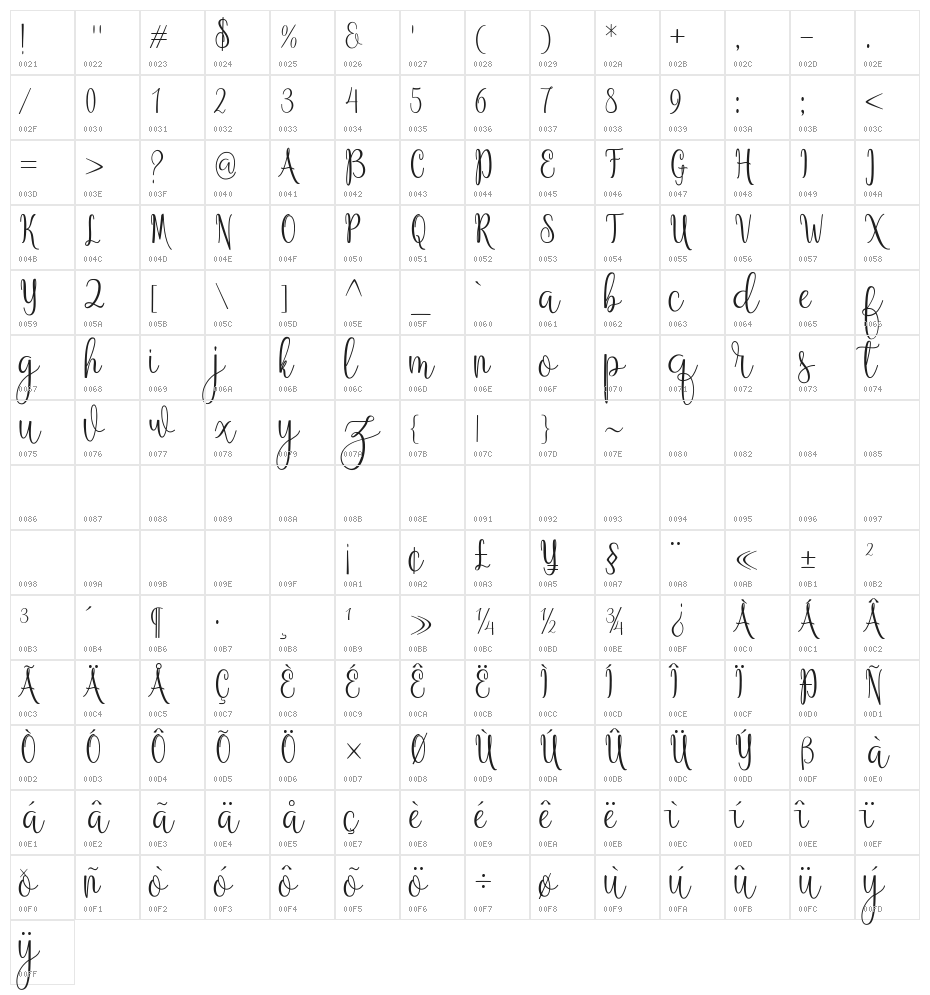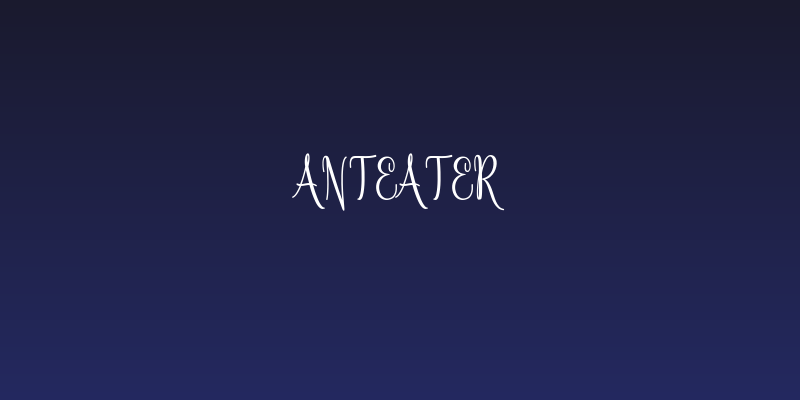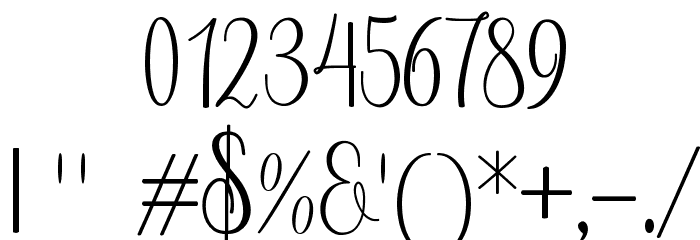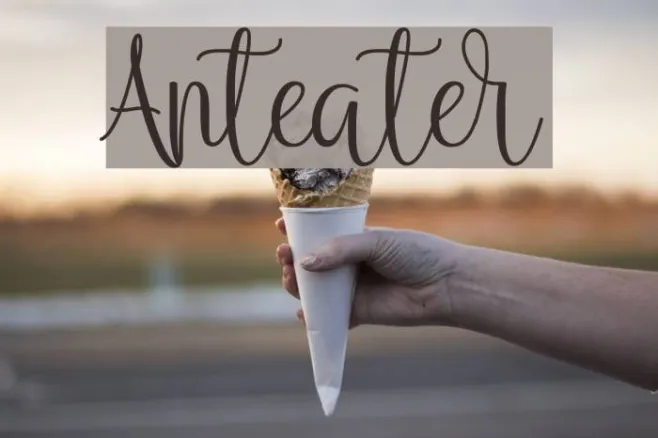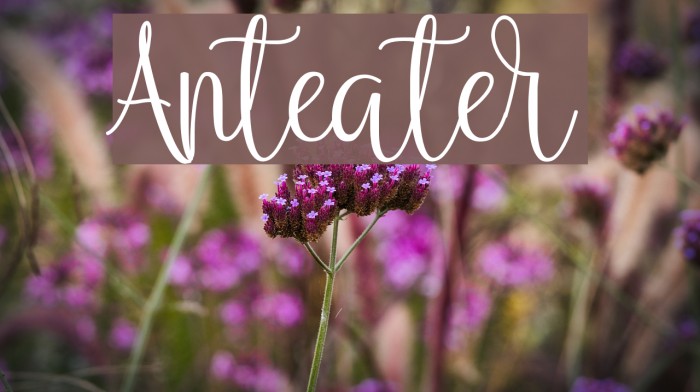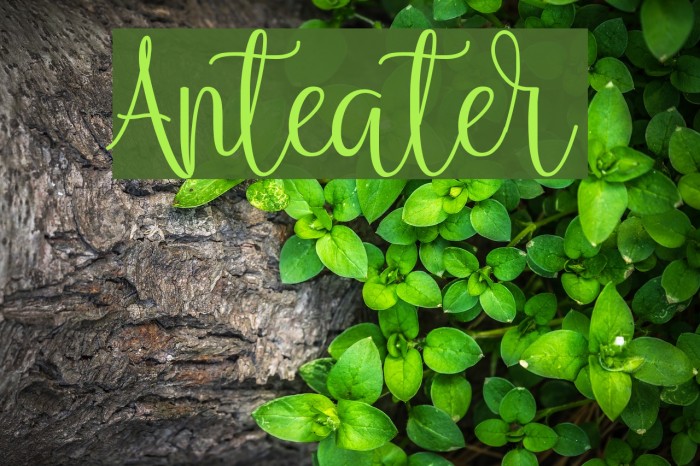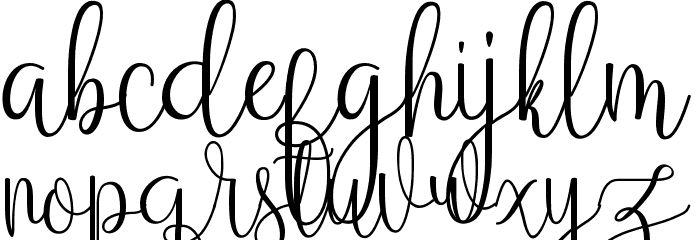
Anteater Font
Anteater Description
This font features a playful and elegant script style with a handwritten feel. The characters are fluid and connected, giving a sense of movement and grace. The uppercase letters are tall and slightly narrow, while the lowercase letters are more rounded and flowing. The numbers and special characters maintain the same whimsical style, making them cohesive with the alphabet. This font is perfect for adding a personal touch to any design, with its artistic curves and loops that create a sense of sophistication and charm.